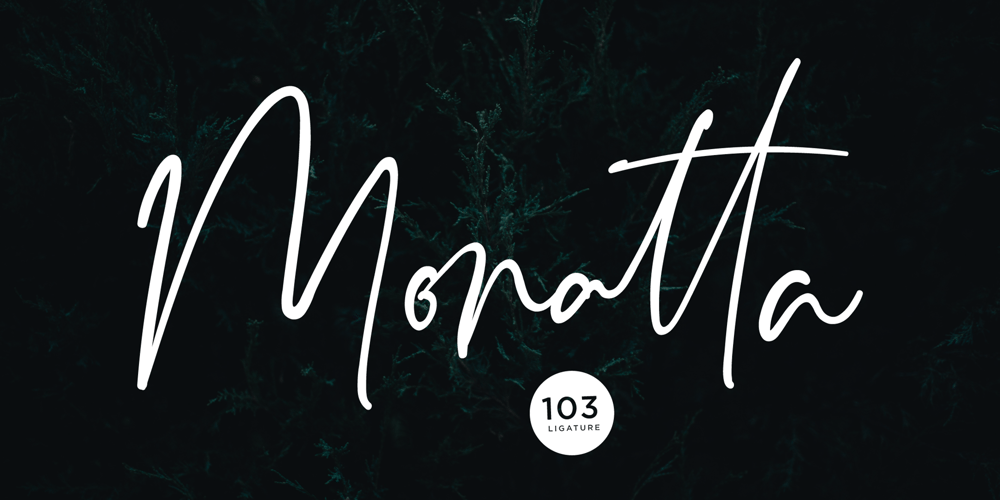
Monatta
Monatta font
Monatta Font Family was designed by Revo Farsiky and published by Pen Culture. Monatta contains 1 styles and family package options. Monatta is a luxury signature font. Created carefully with specific OpenType features include all caps, multilingual support (including currency symbols), 94 ligatures, standard numbers, and many others. this font perfect for any purpose, and very easy to use. Features : Uppercase and Lowercase Letter Number and Punctuation Stylistic Alternate Multilingual Accent : ÀÁÂÃÄÅÆÇÈÉÊËÌÍÎÏÐÑÒÓÔÕÖØÙÚÛÜÝßàáâãäåæçèéêëìíîïðñòóôõöøùúûüýÿ Pua Encode Guides to access all alternates glyphs : http://adobe.ly/1m1fn4Y Please fell free to contact me on Hipenculture@gmail.com if you have any question Thank you